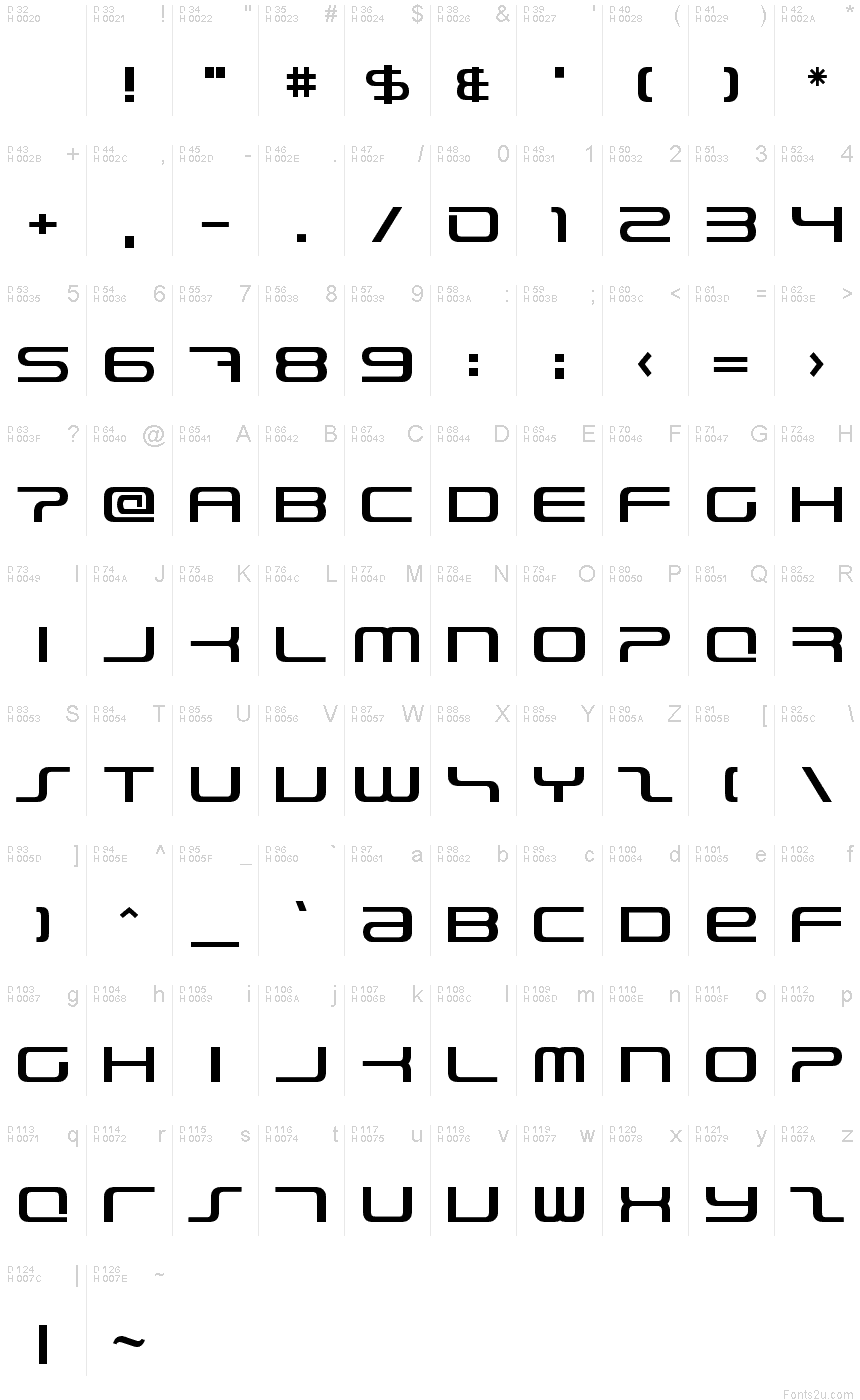
PhatBoySlim by Paul Reid of TracerTong is a free futuristic display font built from broad geometric strokes, softly rounded corners, and an unusually wide stance. The modular letterforms combine open gaps with compact horizontal joins, so the overall silhouette resembles lettering cut into a smooth machine panel.
Technology brands and electronic music events can use its low, streamlined forms for logos and promotional graphics. It also suits game interfaces and science-fiction packaging. The repeated bars, slots, and softened rectangular shapes echo circuit boards, control displays, and technical illustration, so the lettering can become part of the pictured machinery rather than a separate caption.